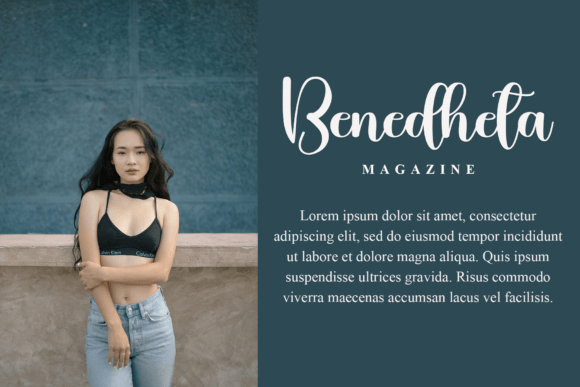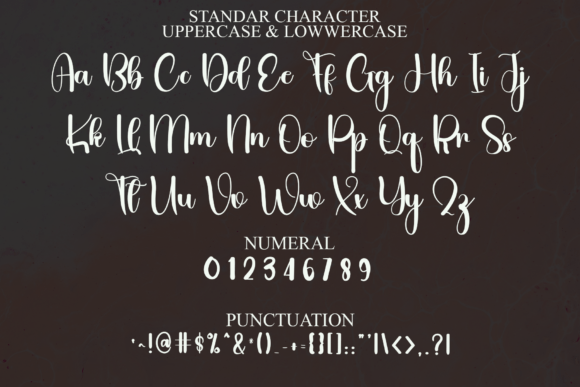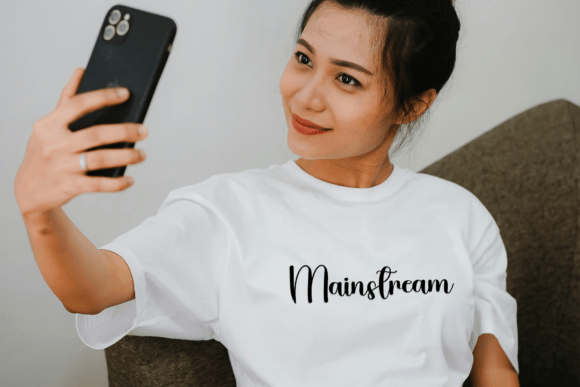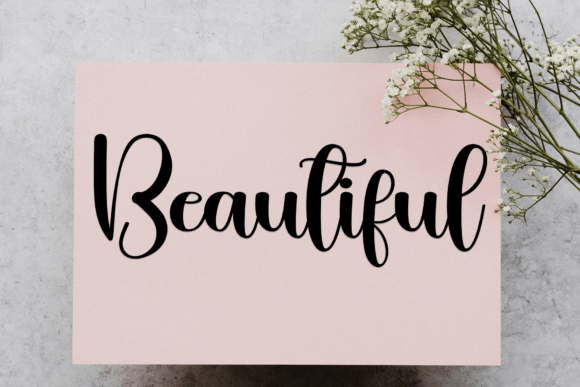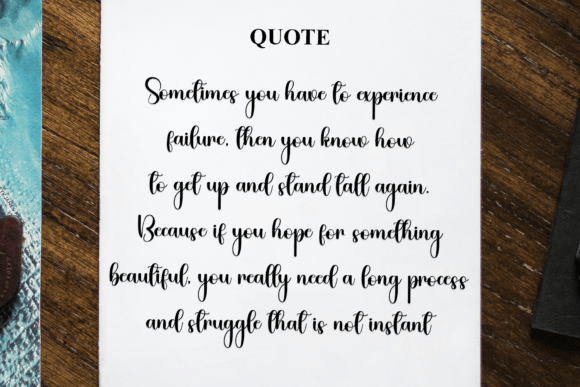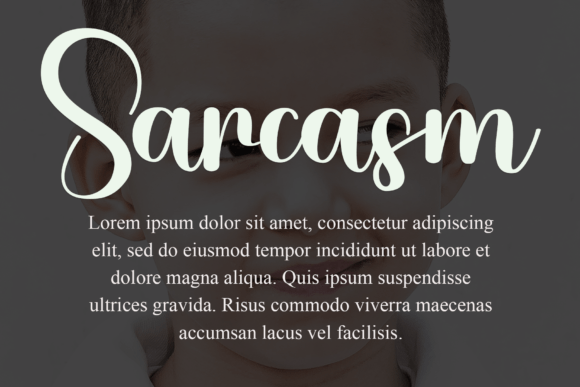
Introduction to Sarcastic Font
Have you ever found yourself in the middle of a creative project, staring at a blank page, and desperately searching for the perfect design element to bring your vision to life? That’s where the Sarcastic Font comes in – a beautiful and refined handwritten font that can add a touch of elegance to even the most mundane design.
As designers, we’re always on the lookout for high-quality design resources that can elevate our work and make it stand out from the crowd. The Sarcastic Font is a valuable addition to any designer’s toolkit, offering a modern and classy look that’s perfect for logos, branding, invitations, and much more.
With its PUA encoded glyphs and ligatures, this font is incredibly versatile and easy to use, making it a must-have for any creative project that requires a touch of sophistication and refinement.
Key Features of Sarcastic Font
- Unique, high-quality design with a transparent background for versatile usage in creative projects
- Includes 12 styles, each with 3 weights (Light, Regular, Bold) for added flexibility in design applications
- Perfect for use in digital design, print materials, and web design projects, thanks to its high-quality and modern aesthetic
Honest Review: Sarcastic Font
As a designer, I’ve had the pleasure of working with a wide range of design resources, and I’m excited to share my thoughts on the Sarcastic Font. I downloaded it for a creative project and was immediately impressed with its high quality.
What works well is the font’s unique, humorous vibe, which adds a touch of personality to any design. The transparent background is also a huge plus, making it easy to overlay on top of images or other design elements. ✨
- High-quality font with a unique, humorous vibe
- Transparent background for easy overlay
One limitation is that the font may not be suitable for all design projects. Its sarcastic tone may not be suitable for serious or professional designs. ⚠️
Overall, I’m impressed with the Sarcastic Font and would definitely recommend it for creative projects that require a touch of humor. With its high quality and unique vibe, it’s a valuable addition to any designer’s toolkit.
Sarcastic Font: A Design Resource for Creative Projects
Tips for Getting the Most Out of Sarcastic Font
Here are a few tips to help you get the most out of Sarcastic Font: use it sparingly to add emphasis to your text, experiment with different font sizes and colors to create a unique look, and use it in combination with transparent backgrounds to create a high-quality design.
Sarcastic Font is a versatile design resource that can be used in a variety of creative projects, including graphic design, digital art, and print design. Some common use cases include: creating a logo or branding, designing a website or app, and creating a social media post or advertisement.
Alternatives to Sarcastic Font
Comic Sans MS is a playful and informal sans-serif font, often used for creative projects and design resources. It’s perfect for adding a touch of humor or whimsy to a design. When to use: For a casual, lighthearted feel or when a more traditional font is not desired. How it compares: Comic Sans MS is a more casual alternative to Sarcastic Font, lacking the edginess and sophistication of its counterpart.